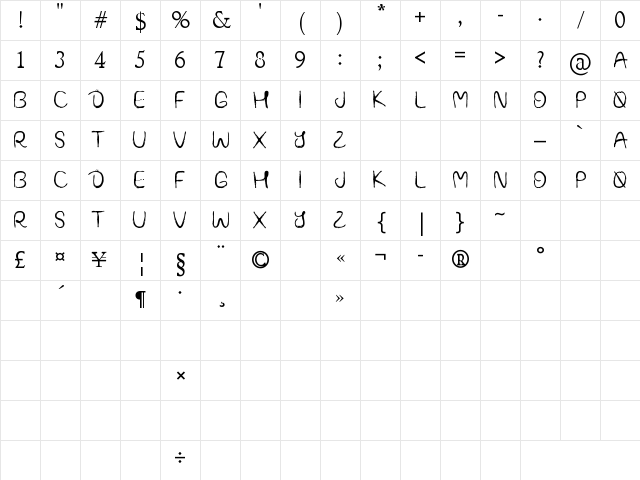
Complete BEDOUIN Regular glyph index. Displaying only characters natively supported by BEDOUIN Regular font.
BEDOUIN is a composed and adaptable typeface that performs quietly and consistently across a wide range of design contexts.